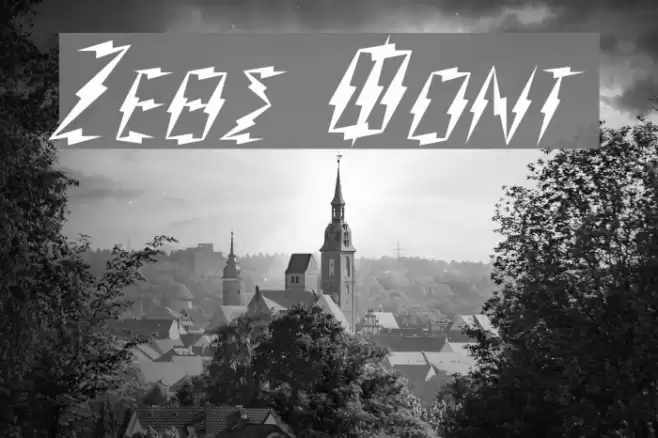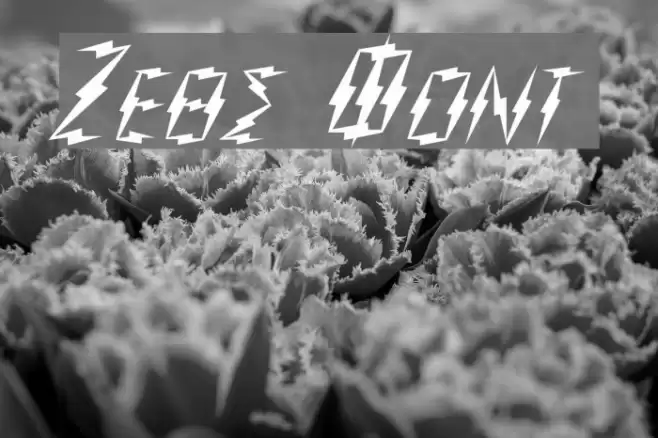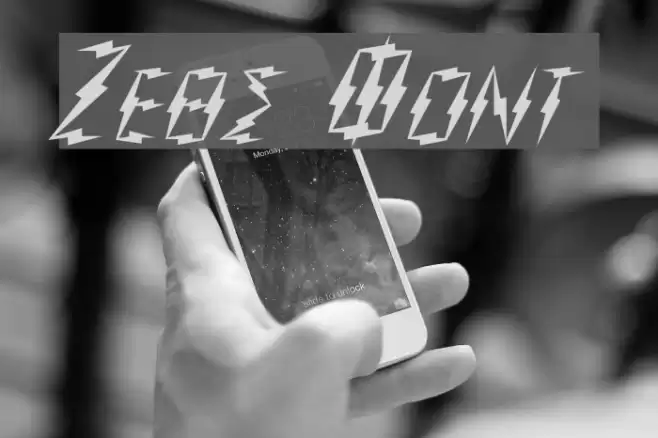
Zeus Font
Zeus Description
This font features a bold and electrifying design, characterized by sharp, jagged edges and a dynamic, angular style. The letters are reminiscent of lightning bolts, conveying a sense of energy and power. Each character is uniquely crafted to maintain a consistent theme of sharpness and movement, making it stand out with its striking appearance. The uppercase and lowercase letters maintain a uniform style, while the numbers and special characters are equally bold and dynamic. This font is ideal for projects that require a strong visual impact and a modern, edgy feel.
A bold, electrifying font with sharp, jagged edges and dynamic style from Quirky fonts.
- Proposed Projects: Ideal for music album covers, sports team logos, action movie posters, and edgy branding.
- Overall Style: Modern, Edgy